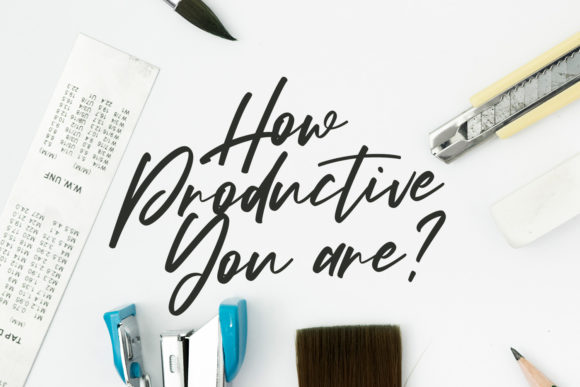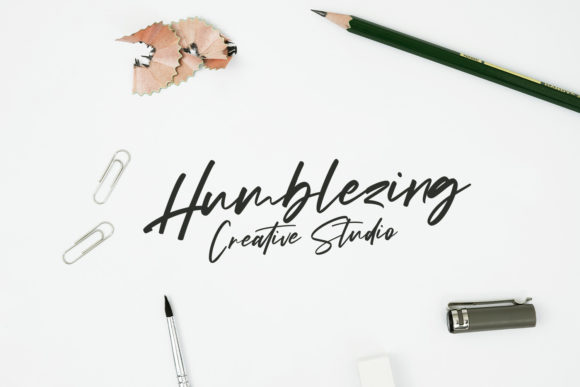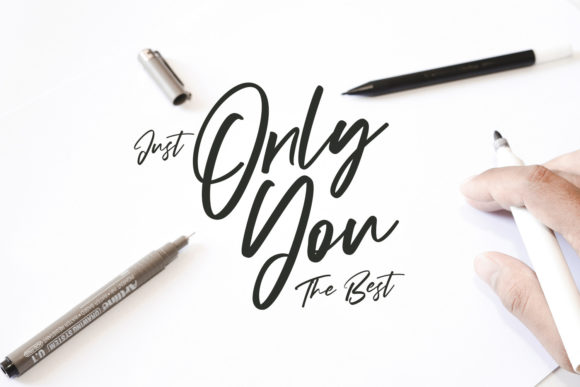
Introduction to Kreatives Script Font
As designers, we’ve all been there – staring at a blank canvas, struggling to bring our creative vision to life. But what if you had the perfect tool to give your design project that extra oomph? Enter the Kreatives Script Font, a stunning handwritten font that’s sure to add a touch of luxury to any design.
With its unique feel and high-quality design, the Kreatives Script Font is a valuable resource for any designer looking to elevate their creative project. Whether you’re working on a branding project, a wedding invitation, or a marketing campaign, this font is sure to make a statement. And the best part? It’s available for free download, complete with a transparent background for easy customization.
Key Features of Kreatives Script Font
- High-quality design resource ideal for creative projects requiring elegant and sophisticated typography.
- Designed in a script style, perfect for adding a touch of whimsy and personality to your creative project.
- Features a wide range of characters, including uppercase and lowercase letters, numbers, and punctuation marks.
Honest Review: Kreatives Script Font
I recently stumbled upon the Kreatives Script Font, and I’m excited to share my thoughts with you. As a designer, I’m always on the lookout for high-quality design resources that can elevate my creative projects.
What works well: ✨ The Kreatives Script Font is incredibly versatile and can be used for a wide range of design applications, from logos and branding to wedding invitations and social media graphics. The font is also incredibly easy to read, even at small font sizes.
- High-quality design with smooth lines and elegant curves
- Perfect for creating a sophisticated and creative look
However, there are a few limitations to keep in mind: ⚠️ The font is only available in a few weights, which may limit its versatility for some designers. Additionally, the font may not be suitable for use in large blocks of text.
Overall, I’m impressed with the Kreatives Script Font and would highly recommend it to designers looking for a high-quality, creative font for their projects.
The Kreatives Script Font is ideal for a variety of creative projects, including wedding invitations, birthday cards, and social media graphics. It’s also perfect for business presentations and documents that require a touch of elegance and sophistication.